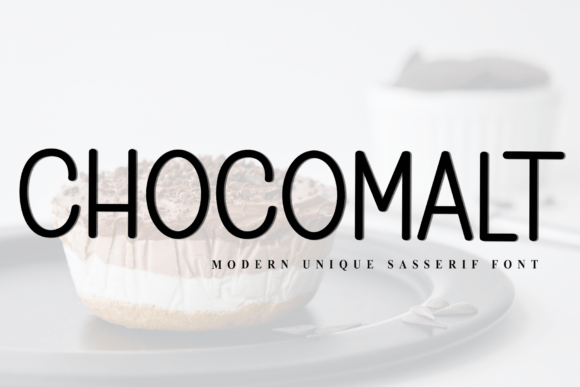
Introducing Chocomalt Font: The Perfect Blend of Style and Versatility
In the world of typography, a good font can make all the difference in the success of a design project. For designers, crafters, and creative enthusiasts, finding the right font that combines aesthetics and functionality is a constant quest. This is where Chocomalt Font comes in – a beautiful and eye-catching typeface that is sure to elevate your designs to the next level.
The Unique Charm of Chocomalt Font
Chocomalt Font is designed with a soft, unique touch that sets it apart from other fonts. Its distinctive strokes give it a special character, making it not only visually appealing but also meaningful and versatile for future use. Whether you’re working on a design project, crafting a handmade card, or creating digital content, Chocomalt Font is the perfect choice.
Key Features of Chocomalt Font
- Variety of Characters: Chocomalt Font comes with a wide range of characters, ensuring that you have plenty of options to experiment with and find the perfect fit for your project.
- Natural Font Style: The font’s natural style makes it ideal for a wide range of products, from digital media to print materials.
- Versatility: The font’s versatility makes it suitable for various design projects, crafts, and other creative works.
Why Choose Chocomalt Font?
So, what makes Chocomalt Font a top choice for designers and crafters? Here are a few reasons:
- Enhance Your Designs: Chocomalt Font is designed to enhance your designs, making them appealing to a wide range of audiences across different artistic and creative fields.
- Unique Touch: Chocomalt Font’s unique touch adds a special charm to your designs, setting them apart from others.
Applications of Chocomalt Font
Chocomalt Font is perfect for a wide range of applications, including:
- Design Projects: Use Chocomalt Font to add a touch of elegance and sophistication to your design projects, such as brochures, posters, and business cards.
- Crafts: Add a personal touch to your handmade crafts, such as cards, scrapbooks, and journals, with Chocomalt Font.
- Digital Content: Use Chocomalt Font to create engaging digital content, such as social media graphics, blog posts, and email newsletters.
Tips for Using Chocomalt Font
Here are a few tips for getting the most out of Chocomalt Font:
- Experiment with Different Sizes: Try out different font sizes to see how Chocomalt Font looks in various contexts.
- Pair with Other Fonts: Experiment with pairing Chocomalt Font with other fonts to create a unique and visually appealing combination.
- Use in Combination with Images: Use Chocomalt Font in combination with images to add an extra layer of depth and interest to your designs.
In conclusion, Chocomalt Font is a beautiful and versatile typeface that is perfect for designers, crafters, and creative enthusiasts. Its unique charm, variety of characters, and compatibility with various applications make it an ideal choice for a wide range of design projects, crafts, and other creative works. With Chocomalt Font, you can elevate your designs and add a special touch that will make them stand out from the crowd.